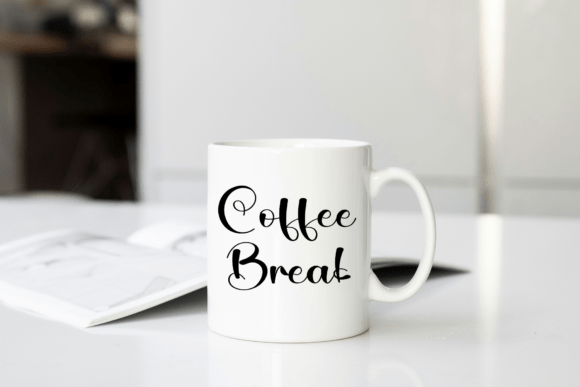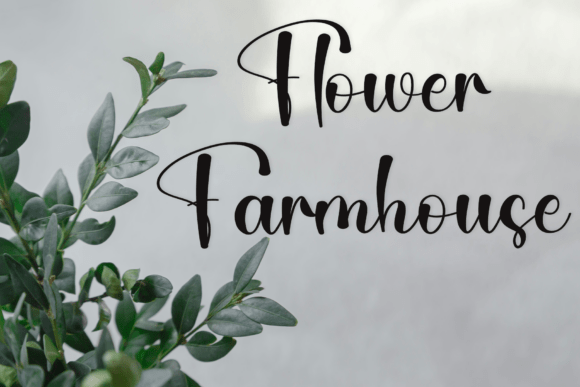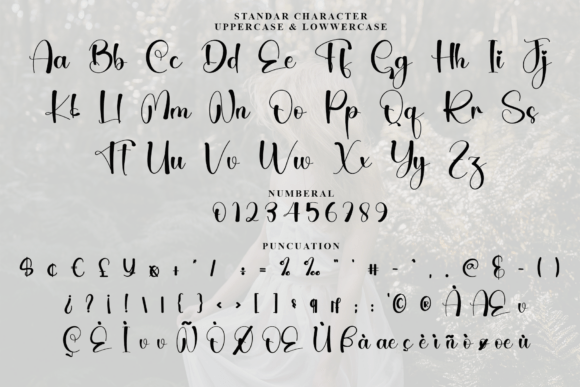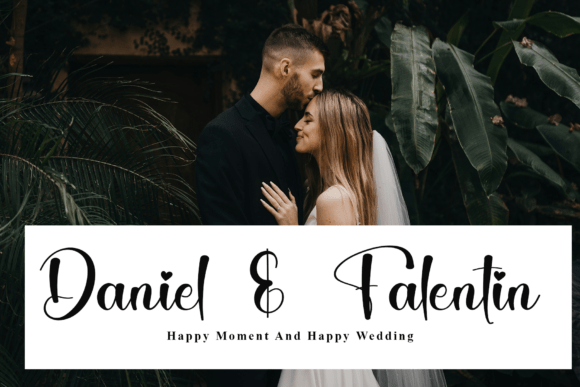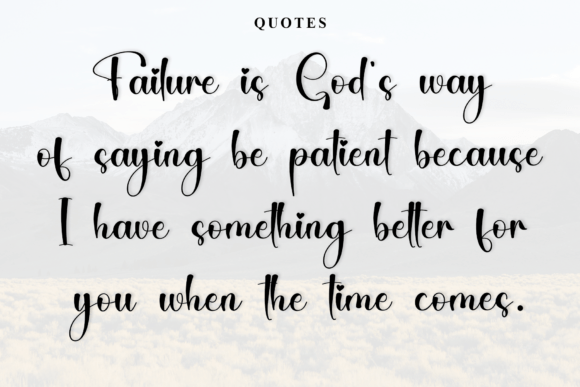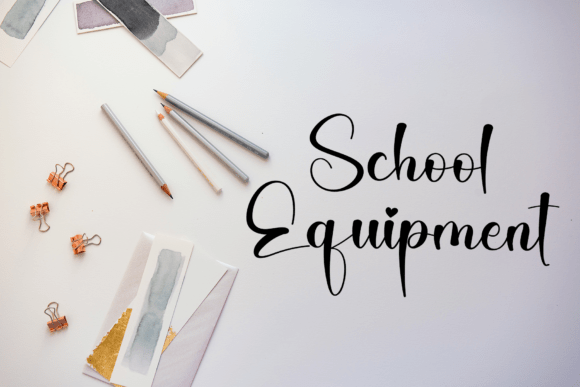
The Sweet Charm of Father Font: A Designer’s Delight
I still remember the time I was working on a wedding invitation project, and my client asked for a font that was both elegant and casual. I scoured the internet, tried countless fonts, but nothing seemed to fit the bill. That’s when I stumbled upon Father Font, a sweet and cursive handwritten font that stole my heart. In this article, I’ll share my experience with Father Font, its features, and how to make the most of it in your designs.
An Honest Review of Father Font
What I Love About Father Font ✨
- 💕 The gentle, cursive script is perfect for adding a touch of romance and whimsy to any design.
- ✅ The font is incredibly versatile and works well for a variety of design projects, from branding to greeting cards.
- 🎉 The elegant yet casual feel makes it ideal for designs that require a sophisticated, yet approachable look.
- 👍 The font is easy to read, even in smaller sizes, making it perfect for body text or captions.
While Father Font is an excellent choice for many designs, there are a few things to keep in mind:
- 🤔 The font may not be the best choice for very formal or corporate designs, as it can come across as too playful.
- ⚠️ Some of the more intricate glyphs and swashes may not display correctly in older software or browsers.
A Practical Guide to Using Father Font
- Experiment with the font’s OpenType features, such as swashes and stylistic alternates, to add visual interest to your design.
The Story Behind Father Font
While I couldn’t find any information on the designer’s background, I imagine that Father Font was created with love and care, inspired by the beauty of handwritten scripts. The font’s gentle, cursive strokes and elegant feel evoke a sense of warmth and sophistication.
Q: What type of projects is Father Font best suited for?
A: Father Font is perfect for a variety of design projects, including branding, logos, wedding invitations, greeting cards, fashion designs, and marketing promotions.
Q: Is Father Font suitable for body text?
A: While Father Font is beautiful, it’s best used as a display font or for short paragraphs of text. For longer body text, you may want to choose a font that’s easier to read.